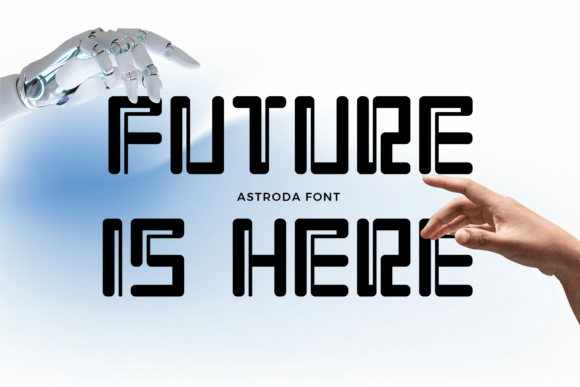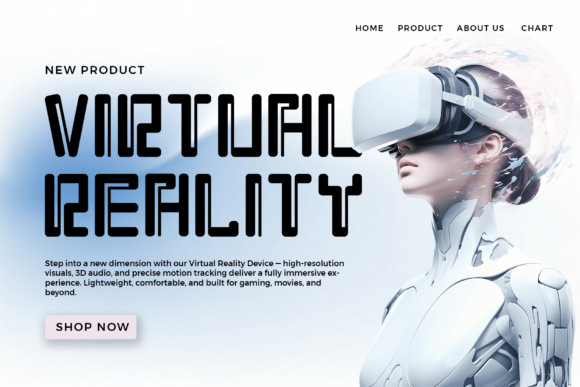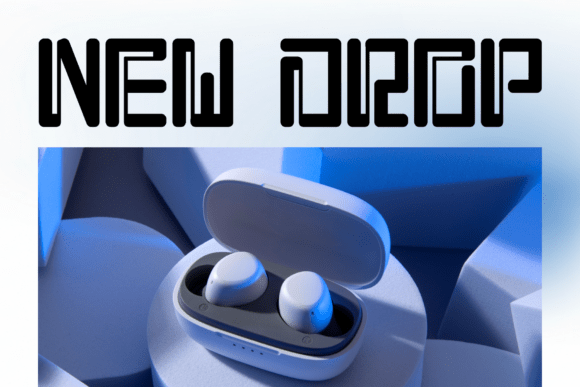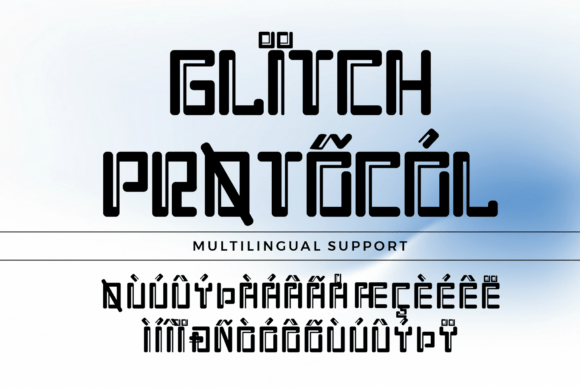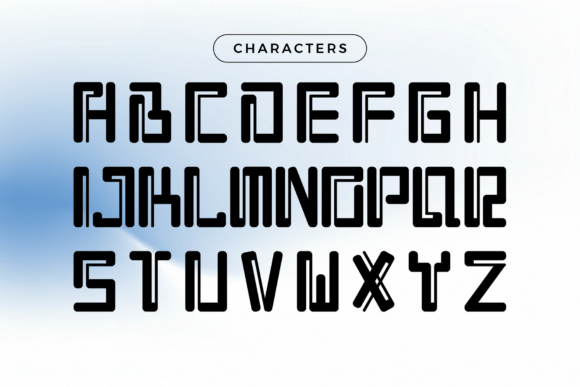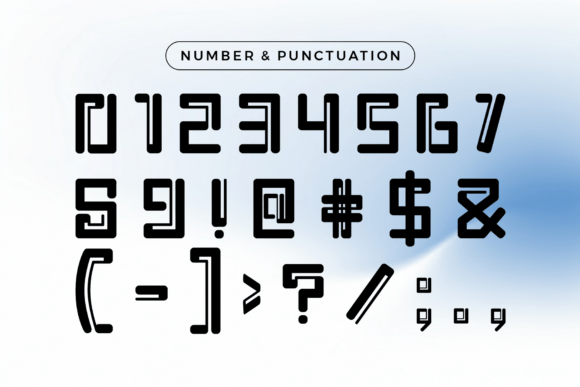
The Cosmic Call of Creativity
Imagine yourself in a dimly lit, futuristic studio, the only sound being the hum of computers and the soft glow of screens. As a designer, you’re tasked with bringing a cutting-edge brand to life. Your mind starts racing with ideas, and suddenly, you stumble upon the perfect font – one that embodies the essence of tomorrow’s world. This is where the Astroda Font comes into play, a game-changing typography that effortlessly blends sleek architecture with minimalist design principles.
As a versatile font, Astroda Font is the perfect companion for designers who crave innovation and precision. Its bold, modular lettering draws inspiration from the digital landscapes, robotics, and advanced electronic systems, making it an ideal choice for modern layouts and brand identities. With its clarity and rhythm, Astroda Font is set to revolutionize the world of design, and we’re here to explore its incredible features.
Astroda Font Key Features
- Font Family: Astroda is a modern sans-serif font family designed for digital use.
- Character Set: Astroda Font supports a wide range of languages, including Latin, Cyrillic, and Greek alphabets.
- Font Sizes: Astroda Font is available in 8 different weights, ranging from Thin (100) to Black (900), and 5 different styles (Regular, Italic, Bold, Bold Italic, and Condensed).
- Unique Characteristics: Astroda Font features a unique blend of geometric and organic shapes, giving it a futuristic and modern feel.
Astroda Font Review
I recently had the chance to work with the Astroda Font, and I must say it’s a unique and intriguing addition to any design project. Here’s my honest take on its strengths and weaknesses.
- The Astroda Font’s most striking feature is its cosmic, otherworldly aesthetic. It’s perfect for sci-fi or futuristic-themed projects, and it adds a touch of whimsy to any design.
- The font is highly customizable, with a wide range of weights and styles to choose from. This makes it easy to create a consistent look across your project.
- The Astroda Font is also highly legible, even at smaller font sizes. This makes it a great choice for body text or captions.
- The Astroda Font’s most significant limitation is its lack of versatility. While it’s perfect for sci-fi or futuristic themes, it may not be the best choice for more traditional or conservative designs.
- The font can also be a bit overwhelming if used in excess. It’s best to use it sparingly to avoid visual fatigue.
Overall, I think the Astroda Font is a great addition to any designer’s toolkit. While it may have its limitations, its unique aesthetic and high level of customization make it a valuable asset for the right projects. With some careful consideration and restraint, the Astroda Font can add a touch of magic to even the most mundane designs.
Tips for Getting the Most Out of Astroda Font
To get the most out of Astroda Font, consider the following tips:
- Use Astroda Font for titles and headings to add a touch of sophistication.
- Pair Astroda Font with a clean and modern sans-serif font for body text.
- Experiment with different font sizes and colors to create visual interest.
Astroda Font is suitable for a variety of use cases, including:
- Graphic design projects, such as brochures and posters.
- Branding and marketing materials, such as logos and business cards.
- Digital design projects, such as websites and social media graphics.